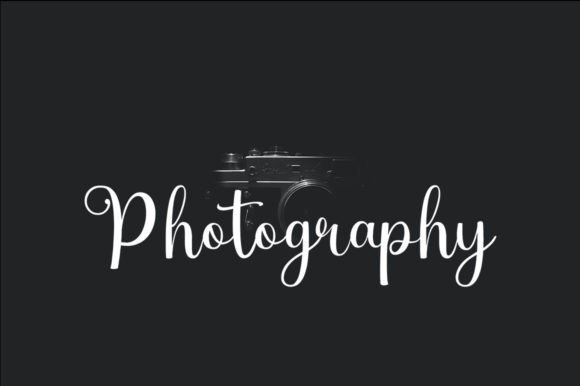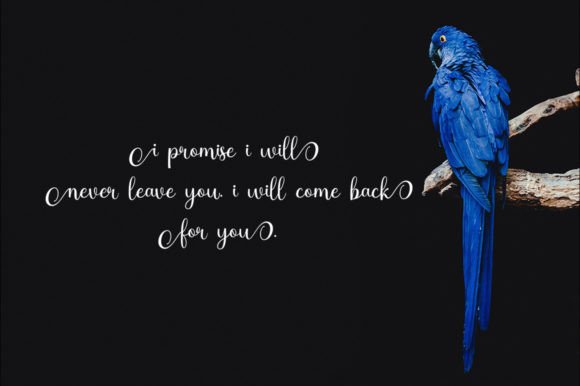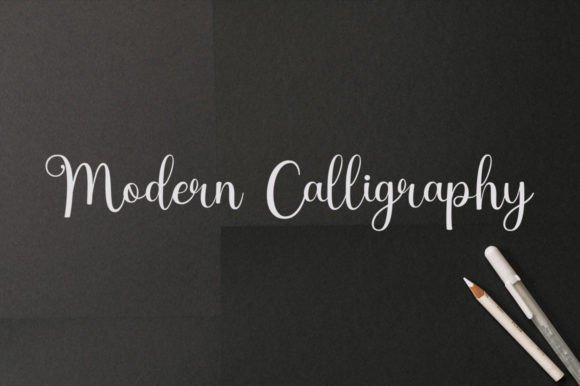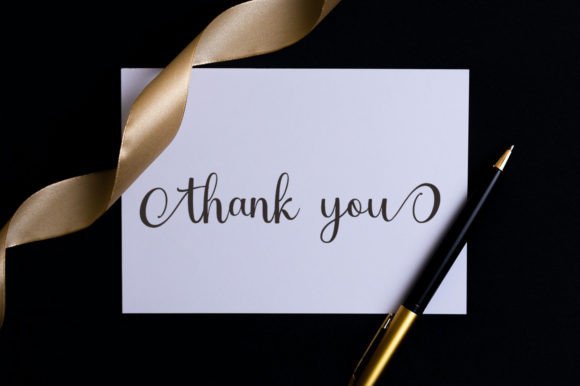
The Ultimate Font for Creative Expression: A Deep Dive into Fanatic Font
I’ll never forget the time I was working on a project for a client who needed a custom greeting card design. I had all the elements ready – the graphics, the colors, the layout – but I was stuck on one thing: the font. I scrolled through my font library, but nothing seemed quite right. That’s when I stumbled upon Fanatic Font, and it instantly became my go-to. In this article, I’ll share my experience with Fanatic Font, its features, and how you can make the most of it in your designs.
An Honest Review of Fanatic Font
Fanatic Font is a neat and casual handwritten font that’s perfect for a wide range of design projects. Here’s what I love about it:
- ✨ Versatility: Fanatic Font is incredibly versatile and can be used for crafts, digital design, presentations, or making greeting cards.
- ✅ Ease of use: The font is easy to read and works well in both large and small sizes.
- 💫 Unique personality: Fanatic Font has a distinct, friendly feel that adds a personal touch to any design.
While Fanatic Font is an excellent choice, it’s not without its quirks:
- 🤔 Limited formal use: Due to its casual nature, Fanatic Font might not be the best choice for formal or professional designs.
- ⚠️ Occasional kerning issues: As with any font, you might encounter some kerning issues, especially when using it in combination with other fonts.
If you like Fanatic Font, you might also enjoy these similar fonts:
- Pacifico: A beautiful, modern script font with a relaxed feel. Use it for designs that require a touch of elegance.
- Great Vibes: A fun, handwritten font with a lively personality. Perfect for designs that need a playful touch.
- Lobster: A sophisticated, elegant script font with a luxurious feel. Use it for formal designs or high-end branding.
- Carolyna Pro: A stylish, handwritten font with a feminine touch. Great for designs that require a personal, whimsical feel.
The Design Story Behind Fanatic Font
Fanatic Font was designed with the goal of creating a friendly, approachable font that’s perfect for everyday design projects. The designer aimed to create a font that’s both elegant and playful, making it suitable for a wide range of applications.
| Font Name | Fanatic Font |
| Author | Anaya Studio |
Q: What type of projects is Fanatic Font best suited for?
A: Fanatic Font is perfect for crafts, digital design, presentations, greeting cards, and any project that requires a friendly, approachable feel.
Q: Is Fanatic Font available in different styles or weights?
A: Currently, Fanatic Font is available in a single style. However, the designer may release additional styles or weights in the future.